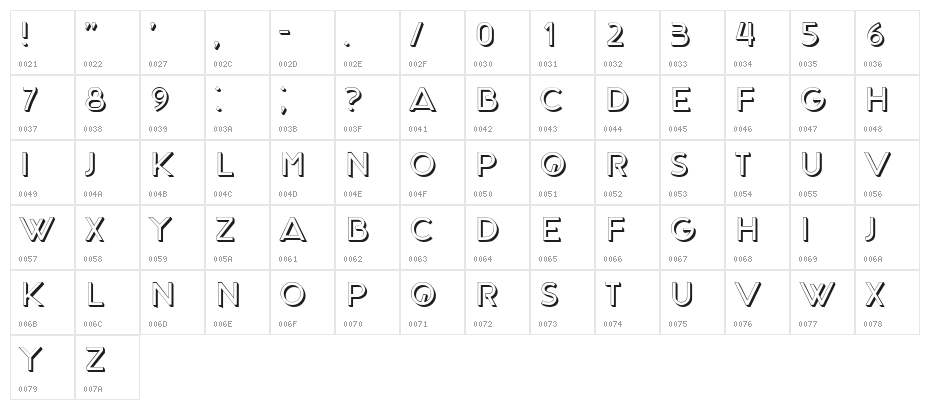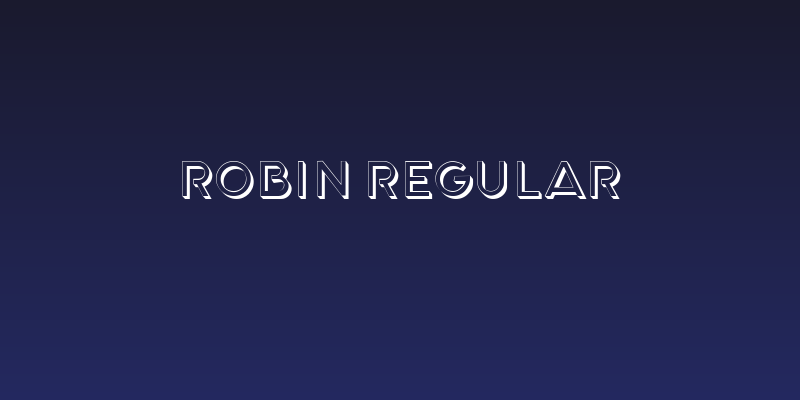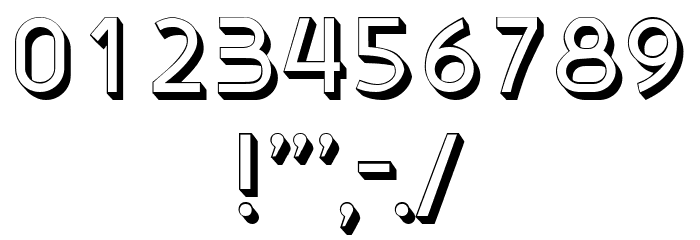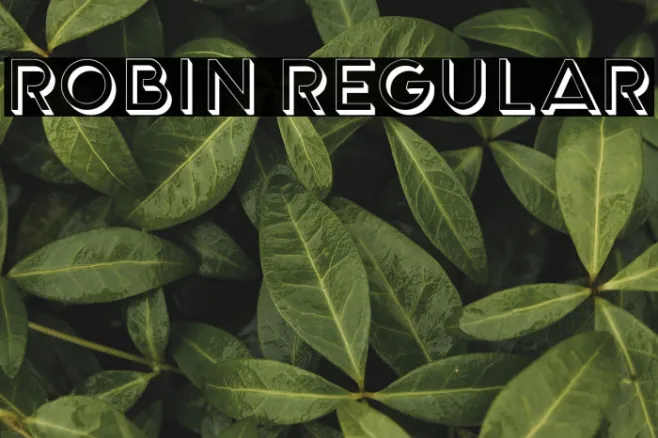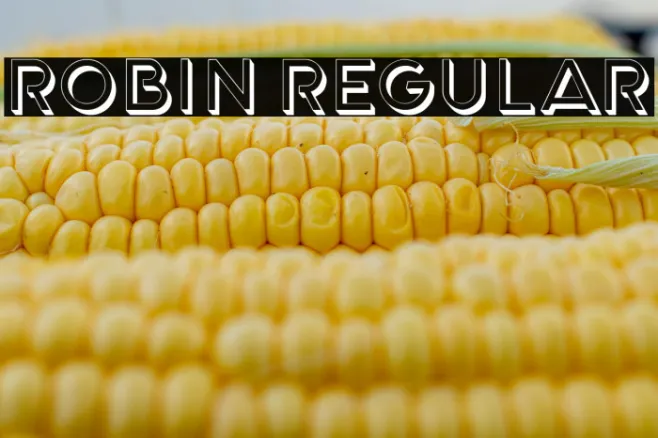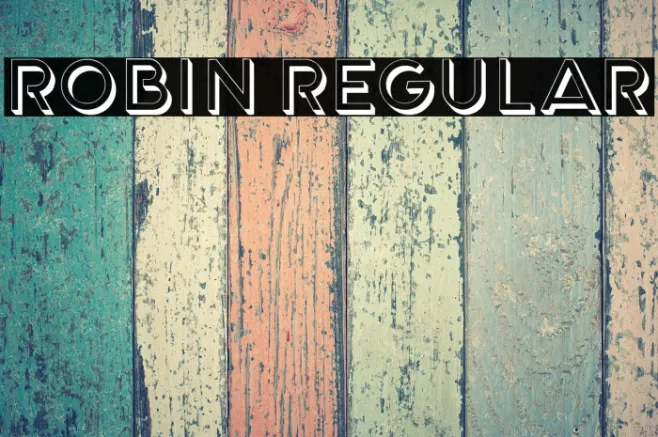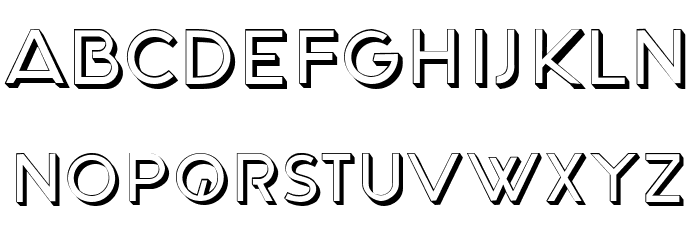
Robin Regular Font
Robin Regular Description
This font features a bold and modern design with a three-dimensional effect that gives each character a shadowed appearance. The uppercase letters are distinct and geometric, with clean lines and sharp angles, creating a sense of depth and dimension. The numbers and special characters follow the same style, maintaining consistency throughout the typeface. The font's unique style makes it stand out, perfect for projects that require a bold statement. Its clean and structured form ensures readability while adding a touch of creativity and modernity.
| Proposed Projects | Ideal for headlines, posters, branding, and any project needing a modern, eye-catching typeface. |